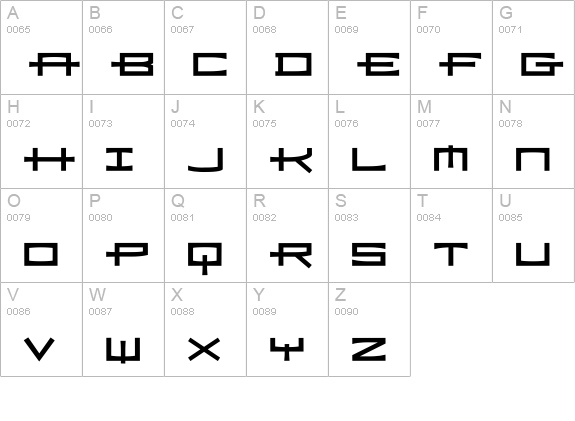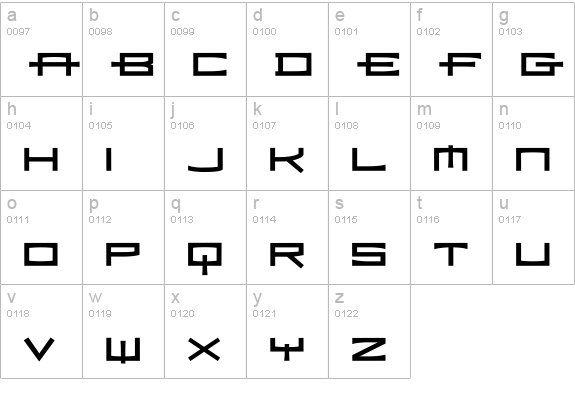
Ramiz-Bold Font Details
Ramiz-Bold is a strong, high-contrast variant in the Ramiz typeface family \xE2\x80\x94 well suited to headlines, attention-grabbing titles, and strong calls-to-action.
Ramiz-Bold is a striking and bold font that exudes confidence and strength. With its clean lines and powerful presence, this font is perfect for making a statement in any design project. Whether you're creating eye-catching headlines or designing attention-grabbing logos, Ramiz-Bold will instantly captivate your audience. One of the best features of Ramiz-Bold is that it is free. Yes, you read that right - this incredible font is freely available to download at FontsMarket.com. This means that you can add a touch of sophistication to your designs without breaking the bank. Whether you're a professional designer or a passionate hobbyist, this font is a must-have in your collection. The versatility of Ramiz-Bold is unparalleled. Its strong and clear letterforms make it easily legible, even at smaller sizes. This makes it ideal for a wide range of projects, from print materials such as brochures and posters to digital designs like websites and social media graphics. No matter how you choose to use it, Ramiz-Bold will make a bold and unforgettable statement. In addition to its stunning aesthetics, Ramiz-Bold also offers a wide range of characters and glyphs. This means that you can add a personal touch to your designs and experiment with different styles and variations. Whether you're looking for a classic and timeless look or a modern and edgy feel, this font has got you covered. So why wait? Download Ramiz-Bold for free at FontsMarket.com and take your designs to the next level. Whether you're creating a professional project or simply want to add some flair to your personal creations, this font is sure to impress. Don't miss out on this opportunity to elevate your designs with Ramiz-Bold - the font that combines power, style, and affordability in one package.